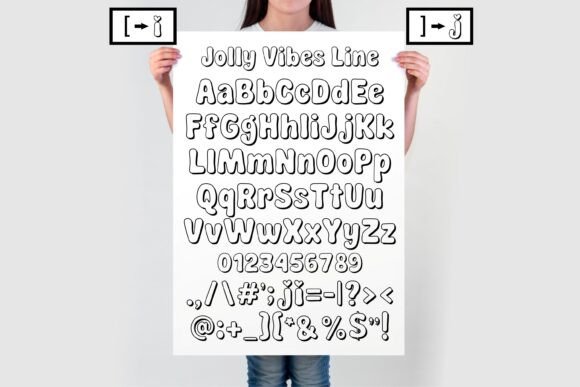
Introduction to Jolly Vibes Line Font
Meet Jolly Vibes Line — a playful and groovy outline version of the beloved Jolly Vibes font.
This handwritten font features bold, whimsical linework that’s perfect for adding a retro, nostalgic touch to your creative projects Whether you’re designing greeting cards, posters, digital prints, or branding materials, this font is sure to make your work stand out.
Key Features of Jolly Vibes Line Font
Why Choose Jolly Vibes Line Font?
Jolly Vibes Line Font offers exceptional quality and versatility, making it a valuable addition to your design toolkit. Whether you’re creating for personal projects or commercial use, Jolly Vibes Line Font delivers professional results.